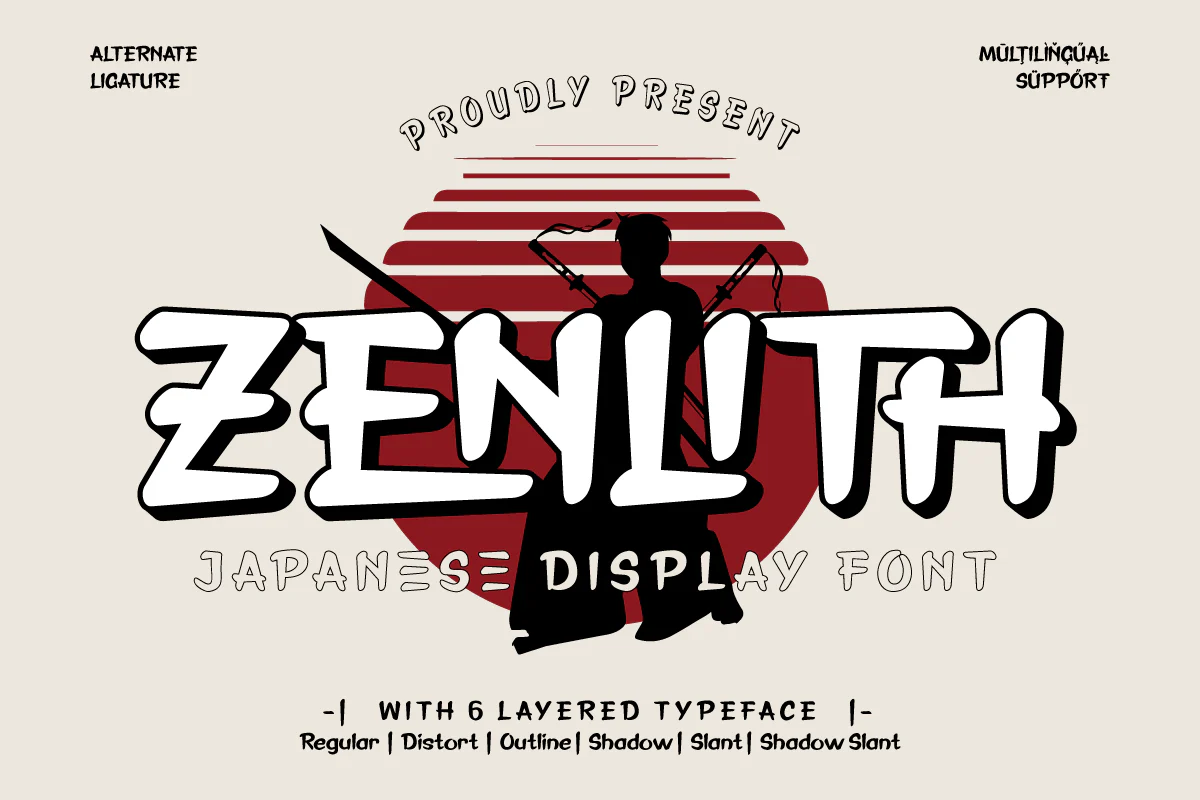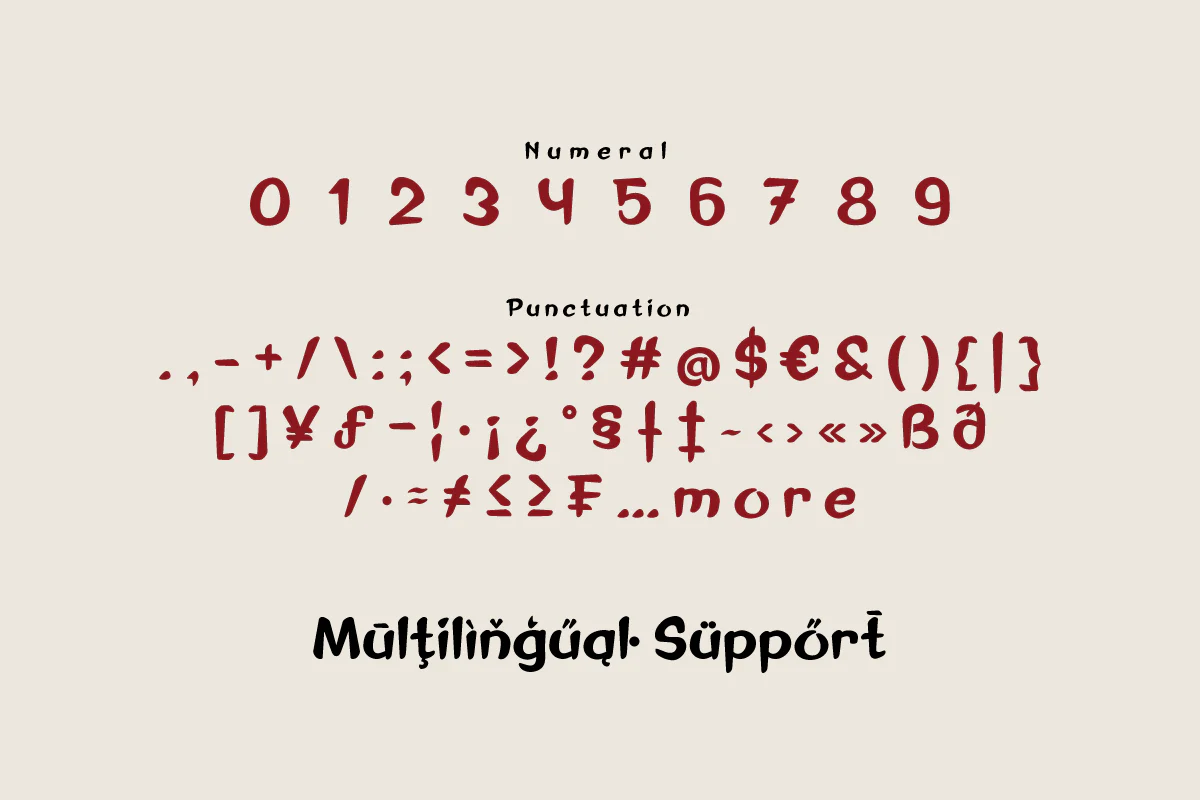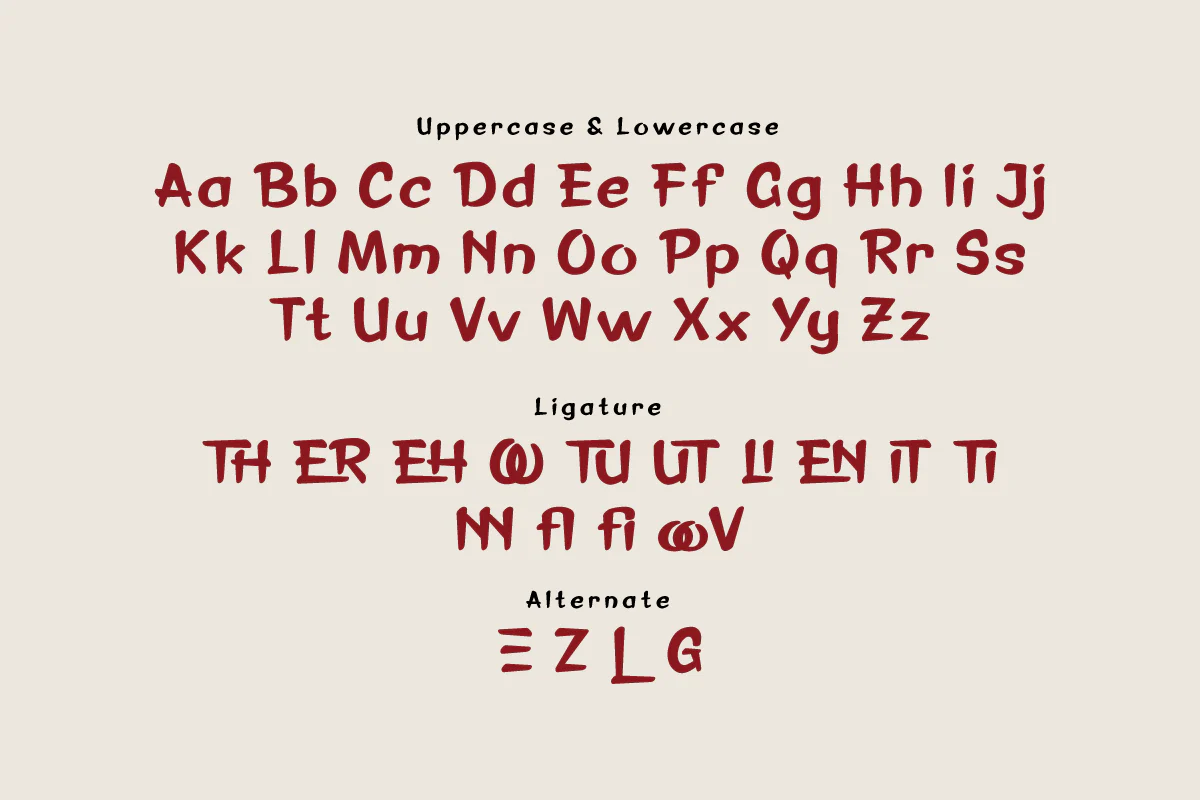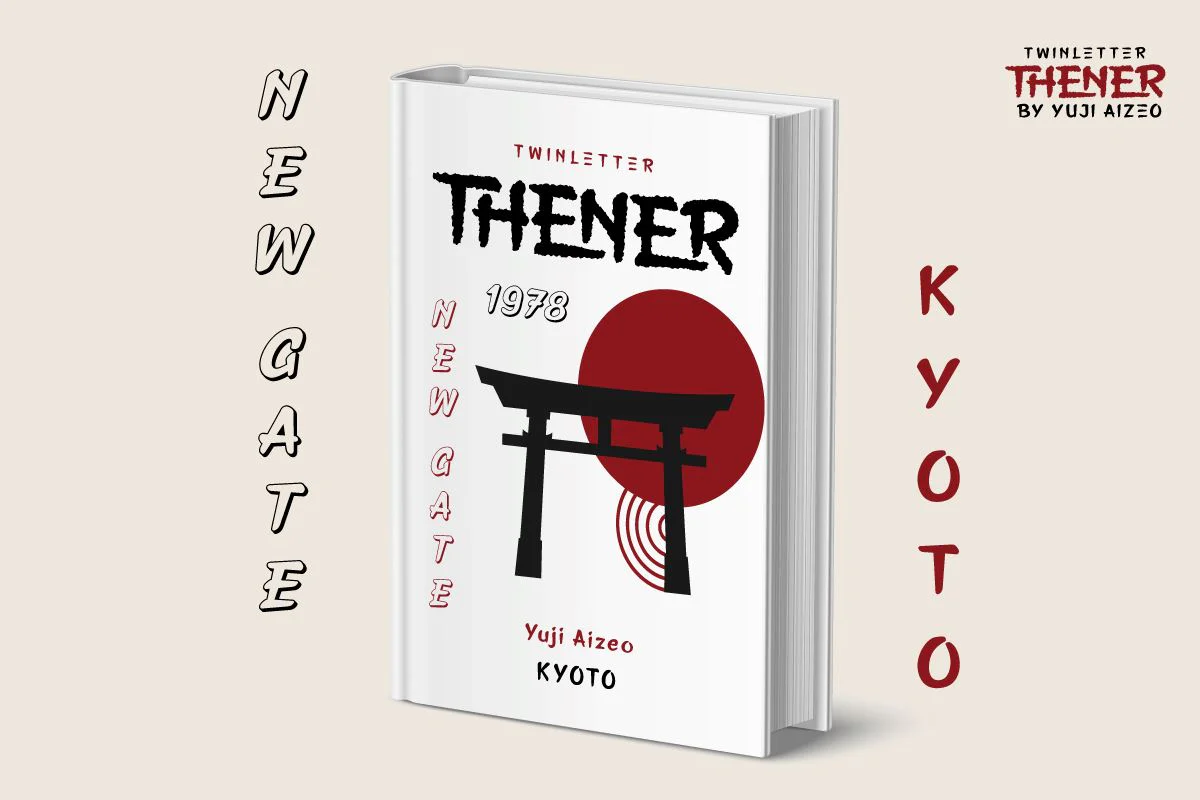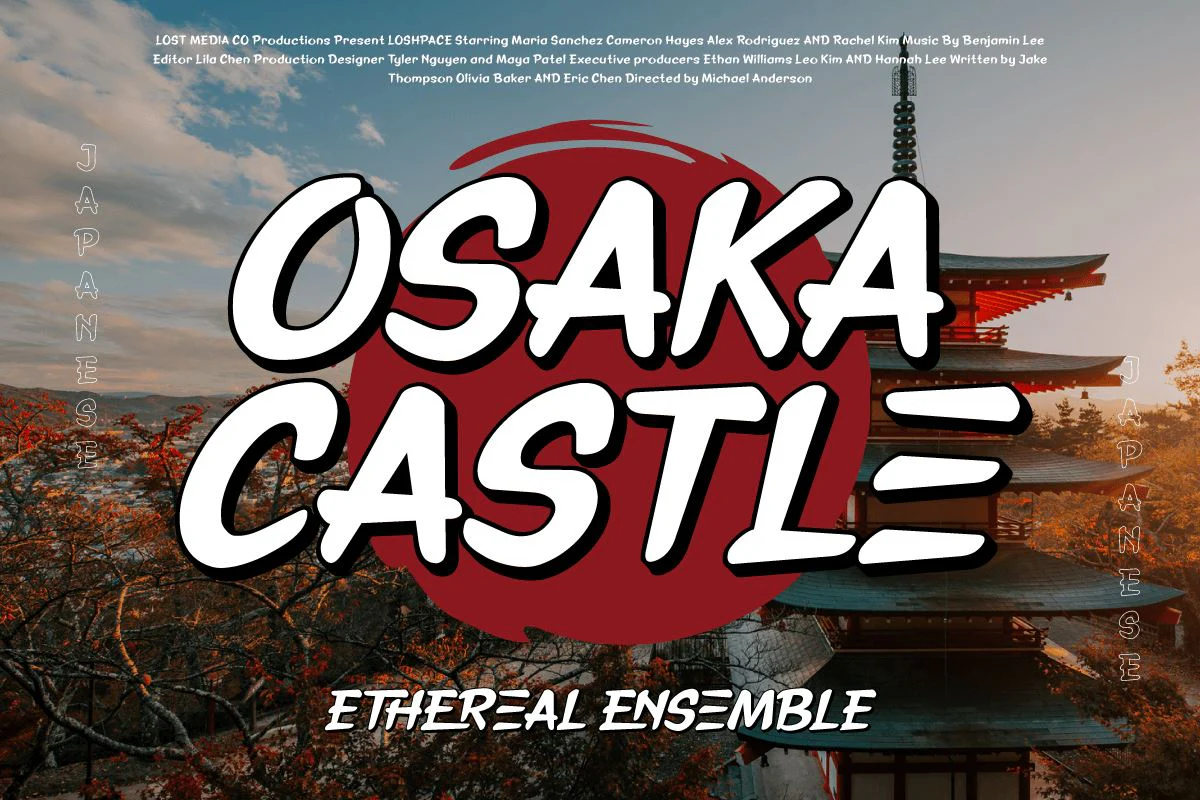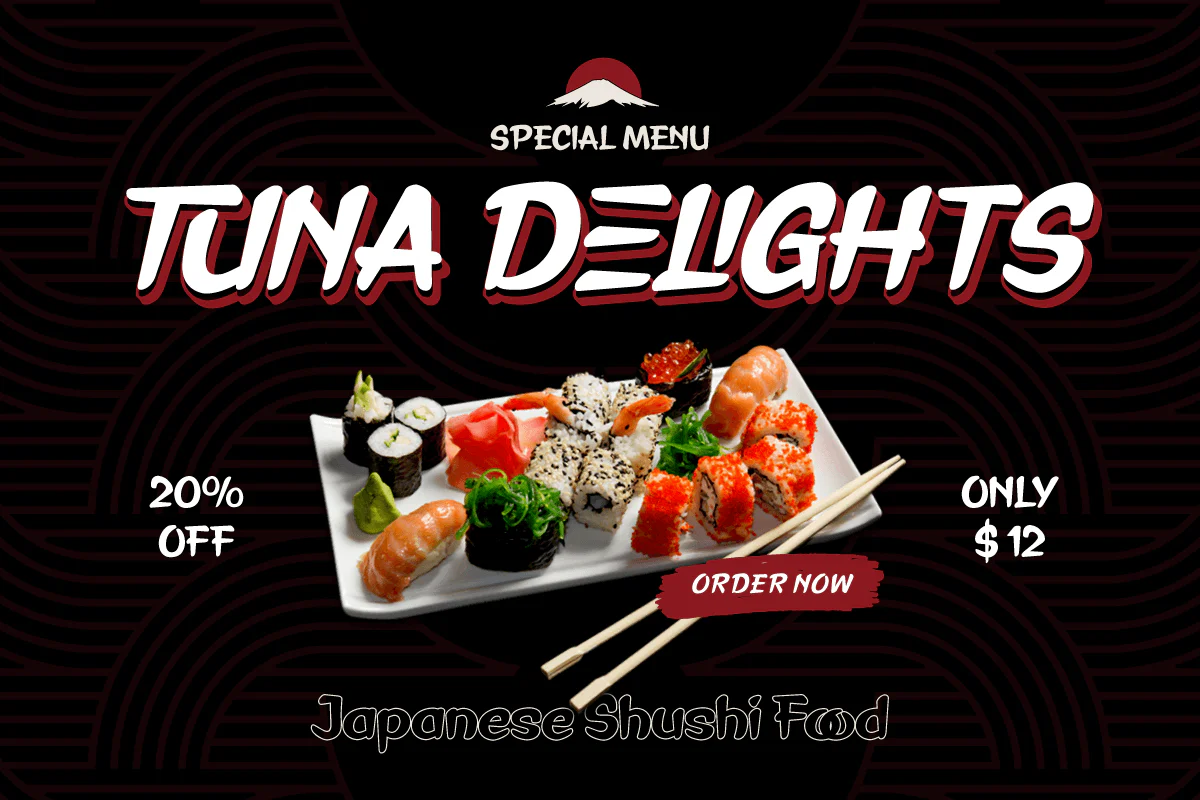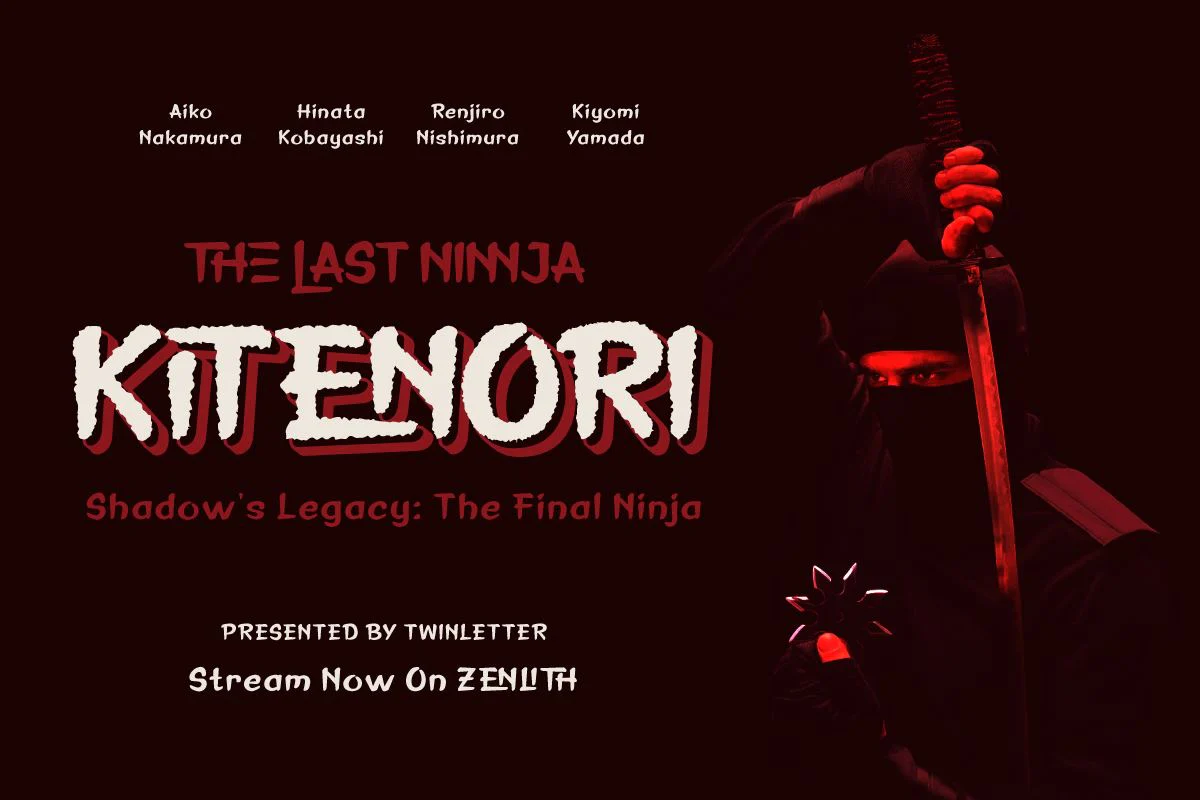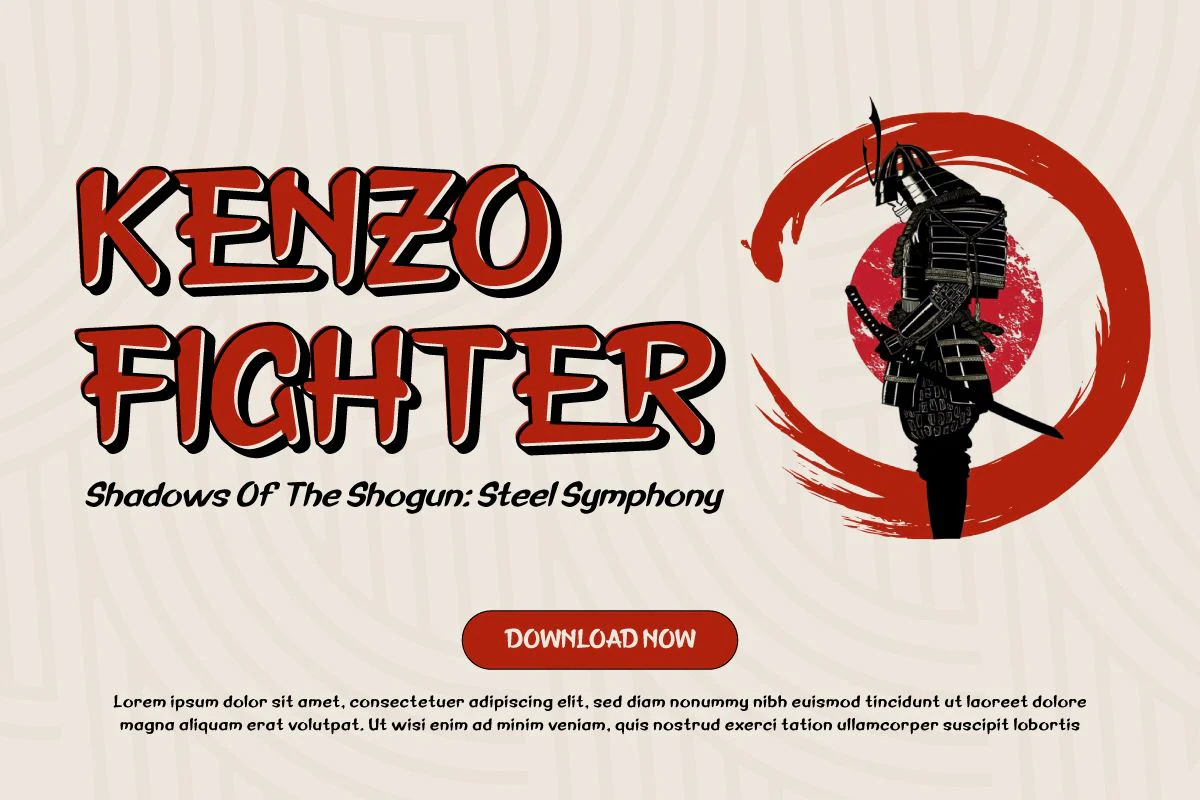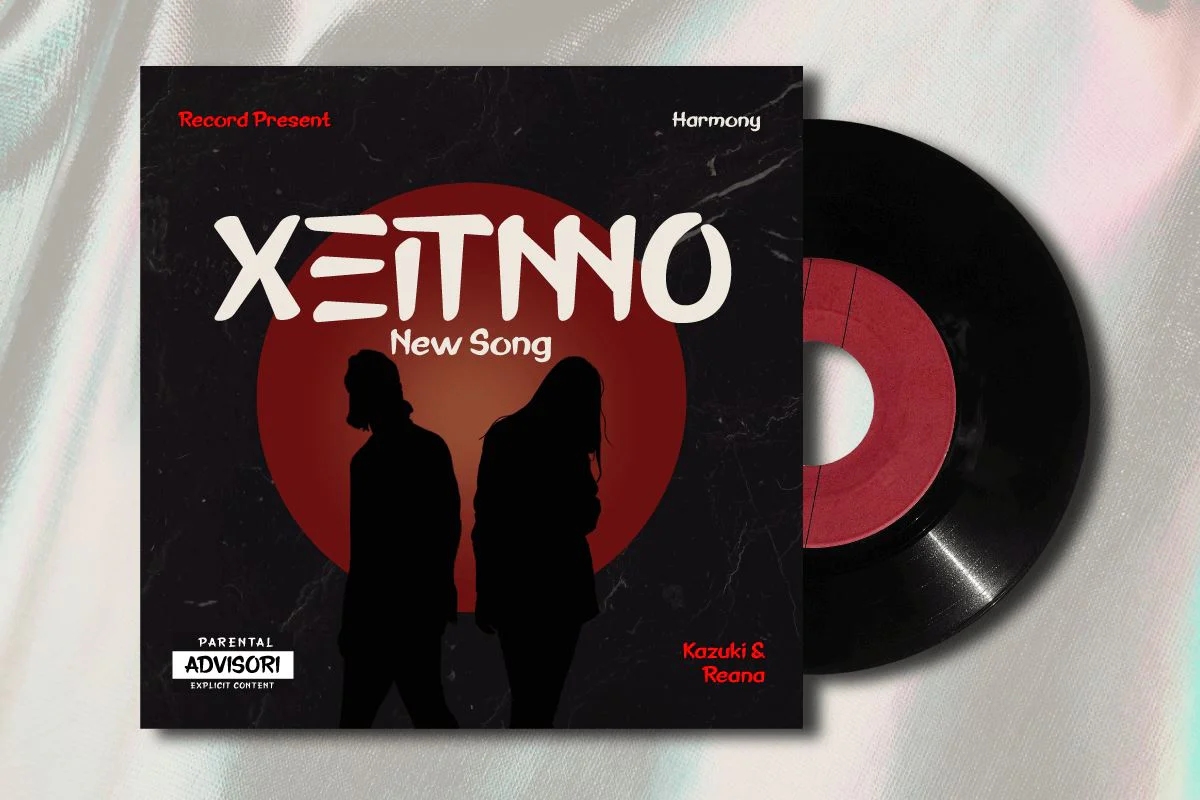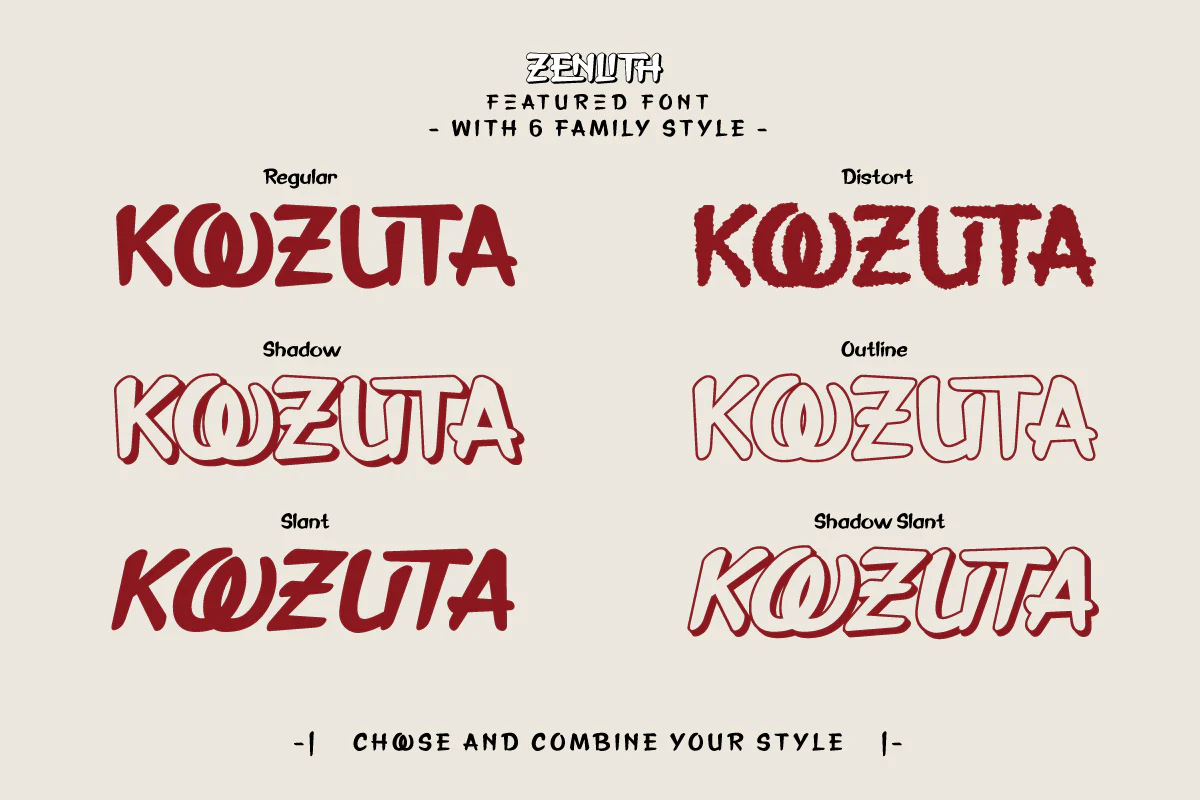
Zenlith - Japan Display Font
Zenlith is a custom design typeface inspired by Japanese aesthetics, creating a look that combines traditional elegance with modern elements. This font is designed to convey a distinctly Japanese feel, suitable for a variety of design projects related to Japanese culture or Asian aesthetics.
Each letter in Zenlith is designed with precision and subtlety, creating an elegant and artistic impression. This font adopts elements of Japanese typography but maintains a contemporary touch to maintain a balance between tradition and innovation.
This font can be used to visualize text in a variety of contexts, such as graphic designs, promotional materials, or even logos, giving it a distinctive and attractive Japanese feel.
Zenlith not only conveys the aesthetic character of Japan but also expresses the balance and peace often associated with Japanese culture. Therefore, this font can be an ideal choice for those who want to create designs that embrace traditional Japanese beauty in a modern form.
Zenlith is a custom design typeface inspired by Japanese aesthetics, creating a look that combines traditional elegance with modern elements. This font is designed to convey a distinctly Japanese feel, suitable for a variety of design projects related to Japanese culture or Asian aesthetics.
Each letter in Zenlith is designed with precision and subtlety, creating an elegant and artistic impression. This font adopts elements of Japanese typography but maintains a contemporary touch to maintain a balance between tradition and innovation.
This font can be used to visualize text in a variety of contexts, such as graphic designs, promotional materials, or even logos, giving it a distinctive and attractive Japanese feel.
Zenlith not only conveys the aesthetic character of Japan but also expresses the balance and peace often associated with Japanese culture. Therefore, this font can be an ideal choice for those who want to create designs that embrace traditional Japanese beauty in a modern form.